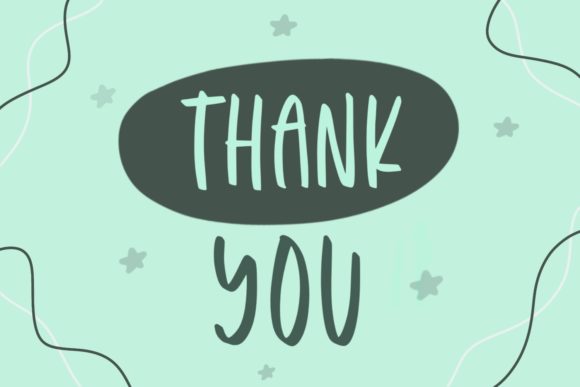
Introduction to Letter Notes Font
Have you ever been working on a creative project, pouring your heart and soul into it, and just can’t seem to find the perfect font to bring it all together? You’ve spent hours scouring the internet for the perfect design resource, only to end up with something that just doesn’t feel right. That’s where the Letter Notes Font comes in – a friendly and adaptable script font that’s sure to add a touch of personality to any design.
With its relaxed and casual vibe, Letter Notes Font is the perfect choice for designers who want to add a little whimsy to their work without sacrificing high quality. Whether you’re working on a project with a transparent background or just need a versatile font for a free download, Letter Notes Font is sure to deliver. In this article, we’ll dive deeper into the world of Letter Notes Font and explore its endless variations – so let’s get started!
Key Features of Letter Notes Font
- High-quality design: Letter Notes Font is designed to provide a unique and creative touch to any project.
- Perfect for creative projects: This font is ideal for use in creative projects such as illustrations, graphics, and typography-based designs.
Honest Review: Letter Notes Font
I recently had the chance to work with Letter Notes Font and I must say, it’s been a game-changer for my creative projects. As a designer, I’m always on the lookout for high-quality design resources that can elevate my work, and this font definitely delivers.
- ✨ Unique aesthetic: Letter Notes Font has a distinct, hand-drawn feel that adds a personal touch to any design project.
- ✨ High quality: The font is crisp and clear, making it perfect for both digital and print designs.
- ⚠️ Limited character set: While the font is beautiful, the character set is relatively small, which may limit its use in certain projects.
- ⚠️ Not suitable for body text: Due to its unique style, Letter Notes Font may not be the best choice for body text, but it’s perfect for headlines and titles.
Overall, I’m really impressed with Letter Notes Font and would highly recommend it to fellow designers looking for a high-quality, unique design resource. Its limitations are minor, and its benefits far outweigh them. If you’re working on a creative project and want to add a personal touch, give Letter Notes Font a try – I think you’ll love it!
Letter Notes Font
The Letter Notes Font is a versatile and creative design resource that can elevate any project. This high-quality font features a transparent background, making it easy to integrate into various design platforms.
Using Letter Notes Font in Design Platforms
Getting the Most Out of Letter Notes Font
Experiment with different font sizes, colors, and combinations to unlock the full potential of the Letter Notes Font. Use it as a standalone element or combine it with other design elements for a unique look.
The Letter Notes Font is ideal for various creative projects, including:
- Wedding invitations
- Artistic illustrations